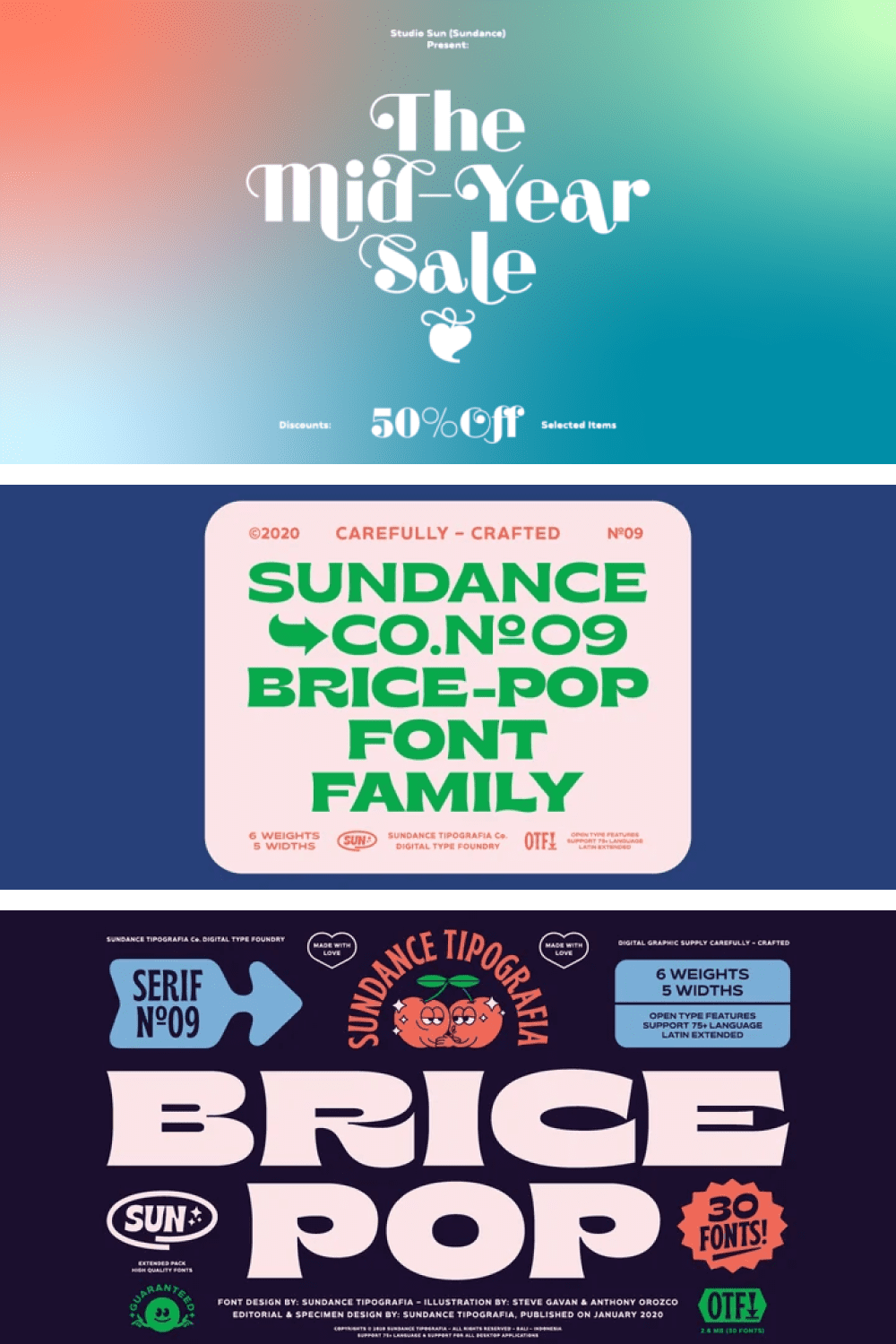
10+ Best Fonts for Resumes in 2021: Free and Premium Fonts
Fonts for Resumes. If you have been looking for a job for a long time and for some reason cannot find one, think about it: maybe the reason is in your resume. Or perhaps you are just planning to put together the perfect presentation of yourself and avoid making any mistakes. This is where we will solve your problem once and for all. Your dream job will be in your pocket.
The visual impact of your resume really plays a huge role in getting your dream job. When reading about you, the employer should be impressed from the very beginning. And, oh yeah! It is quite possible to achieve such an effect if you choose the best fonts for resumes correctly and deliberately.
The ideal type should be a professional and readable font, with nice and clear letters. Let the letters reflect your essence as an employee: clarity, conciseness, and organization are the priority.
Here we have compiled a selection of the best examples of fonts for resumes that will take care of your career success!
Best Premium Fonts for T-Resumes
Best Free Fonts for Resumes